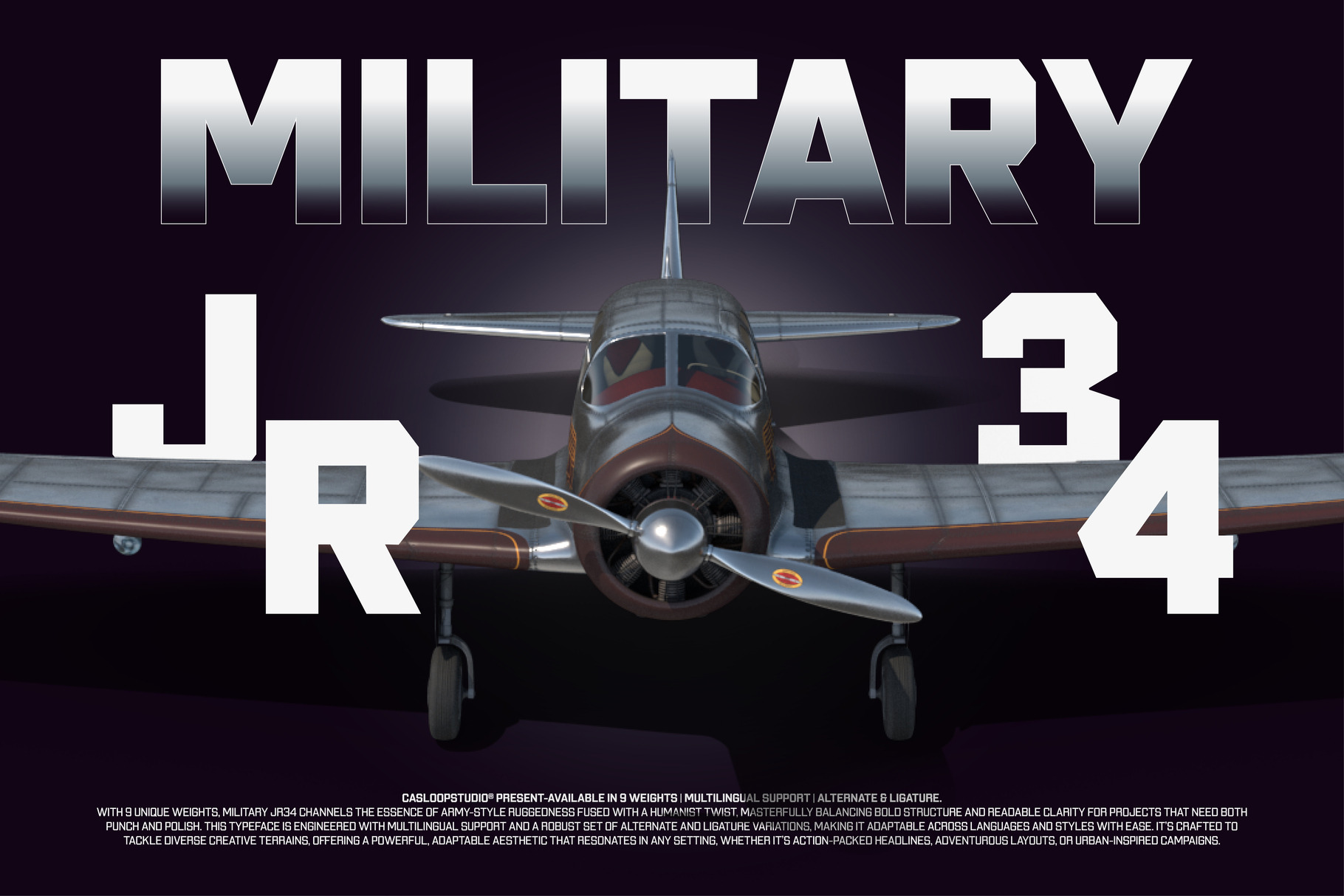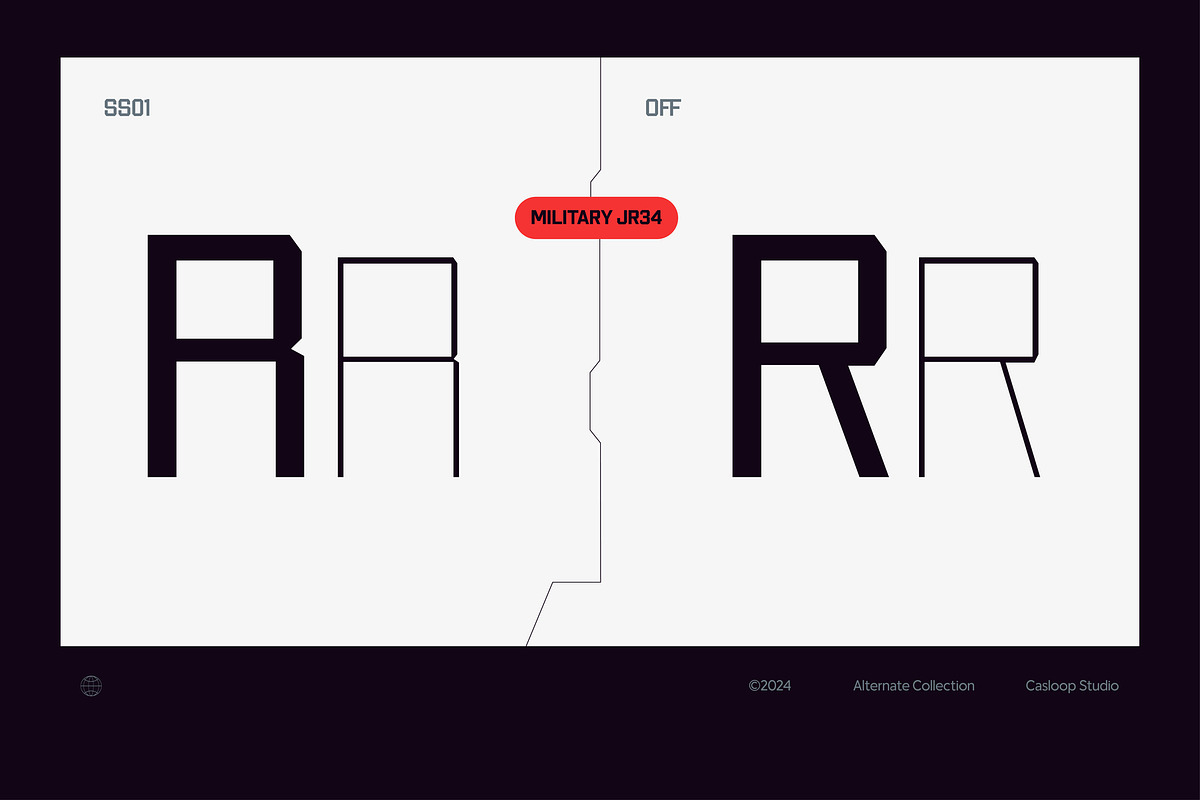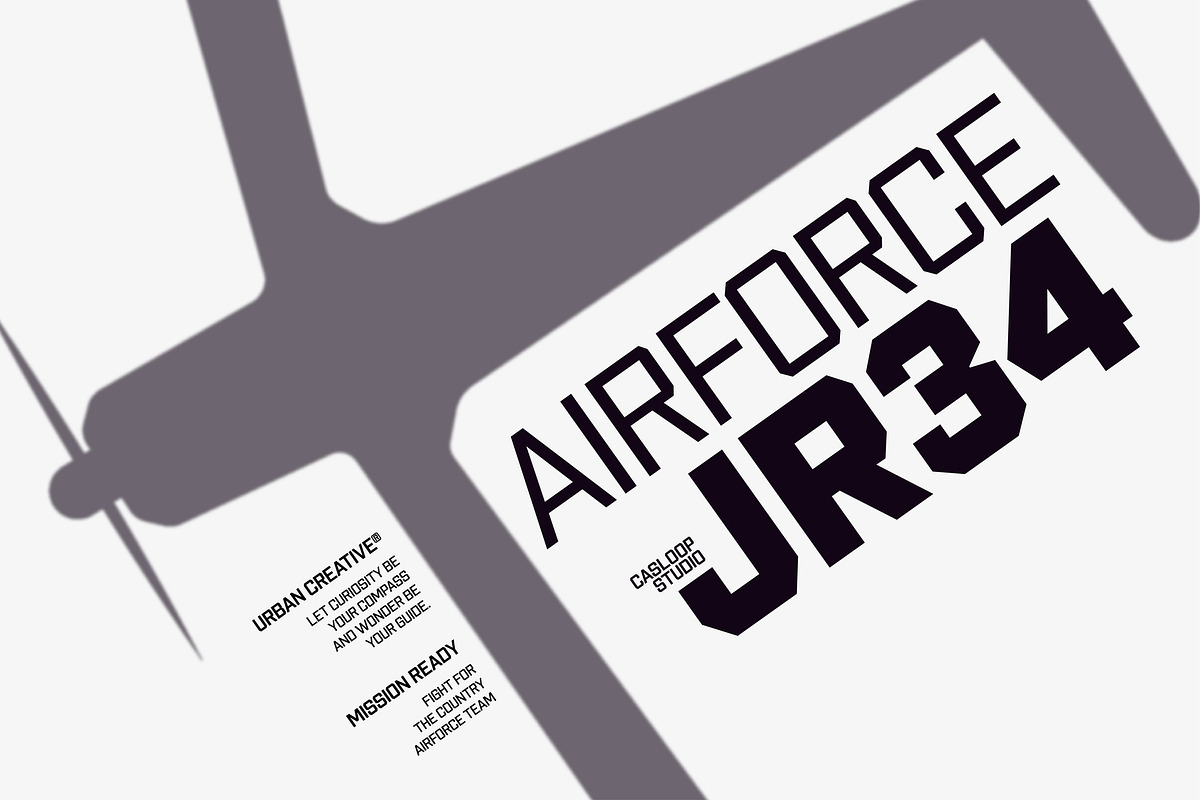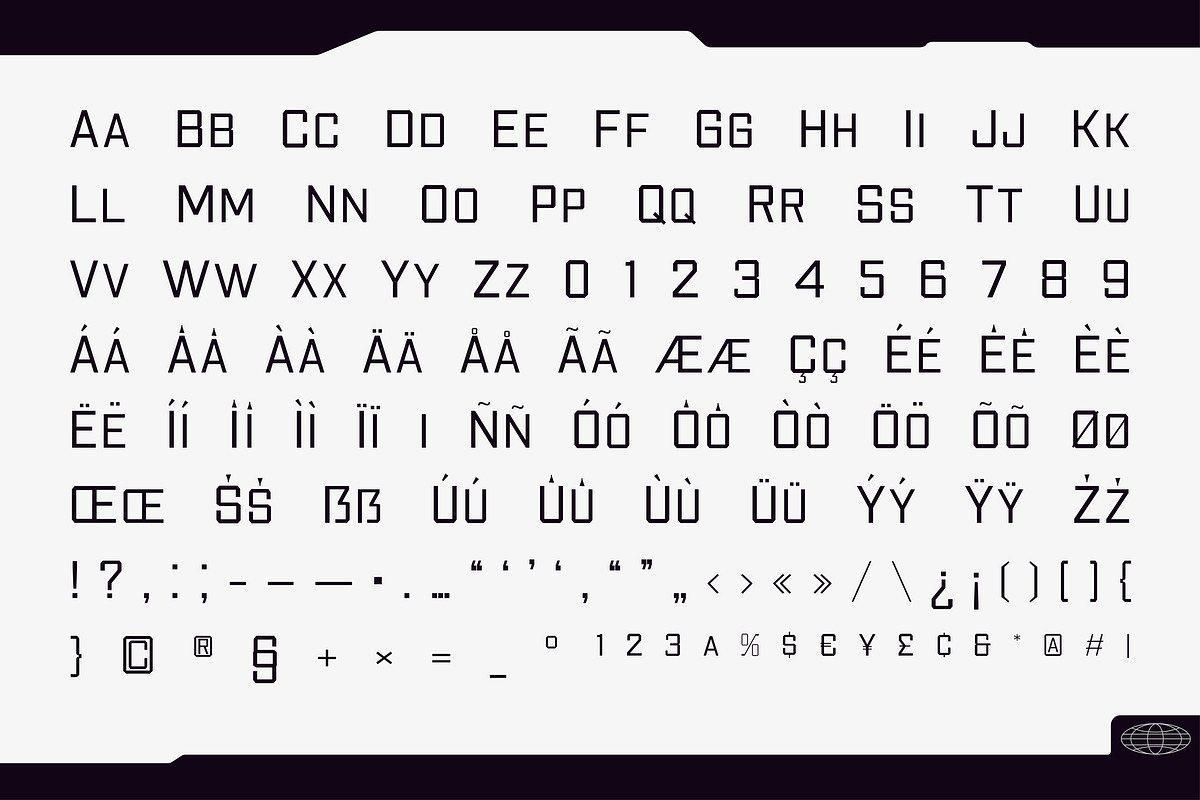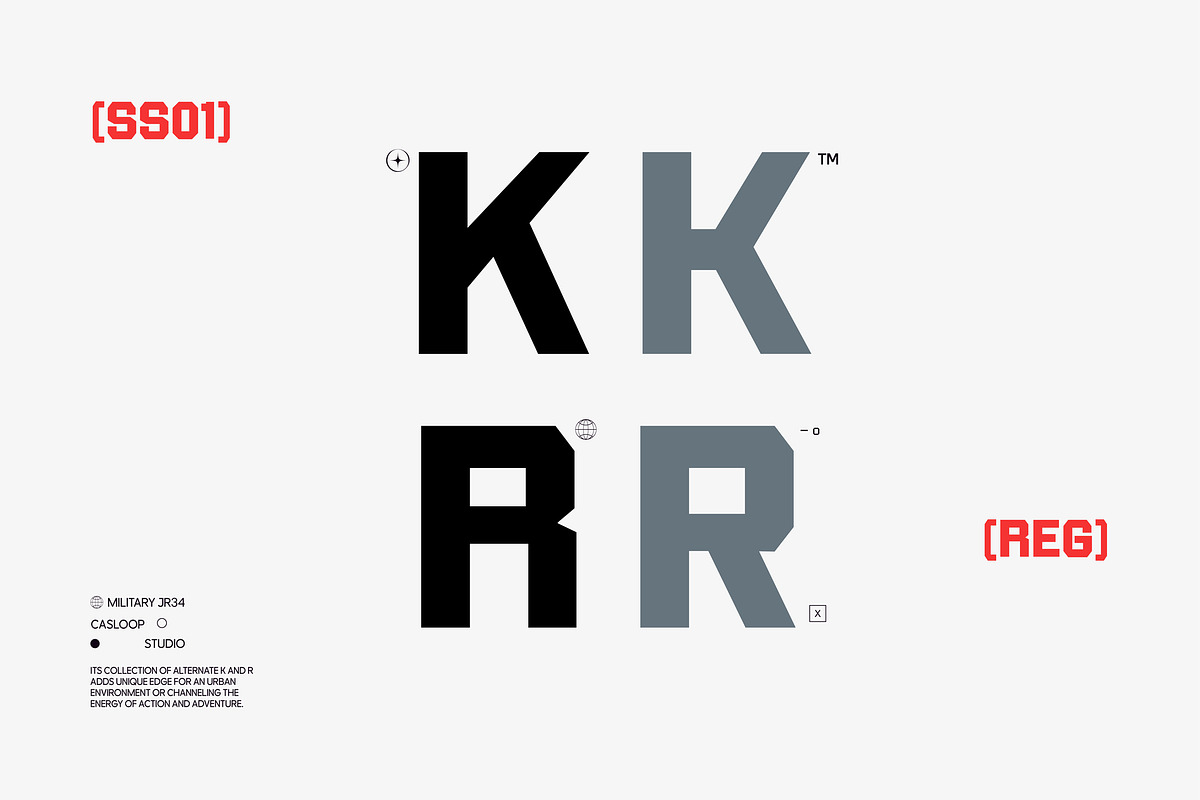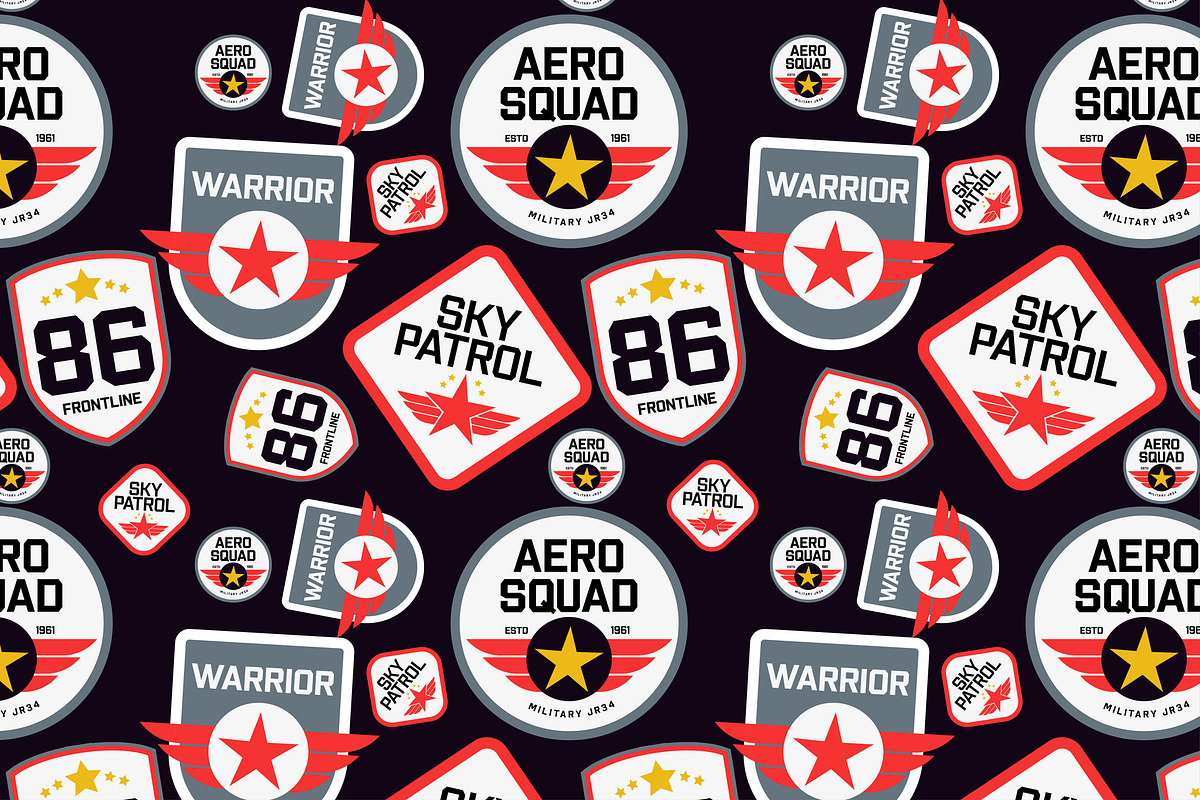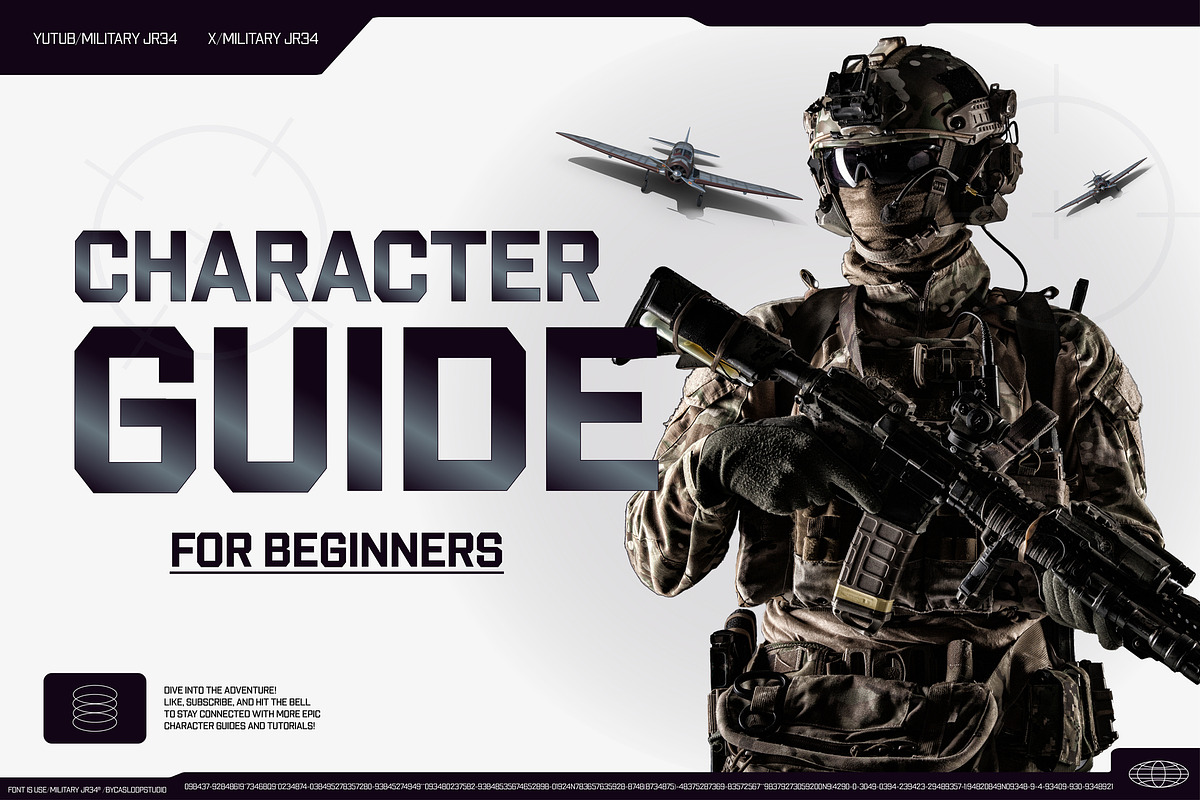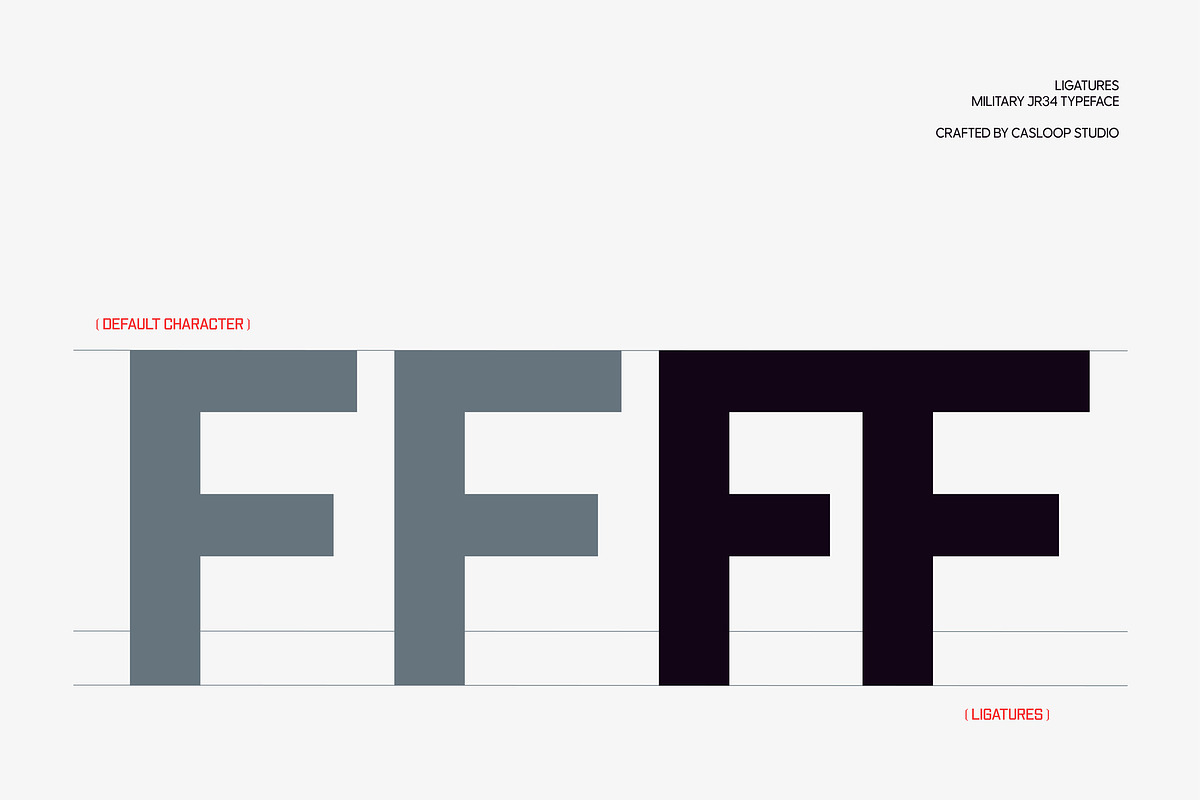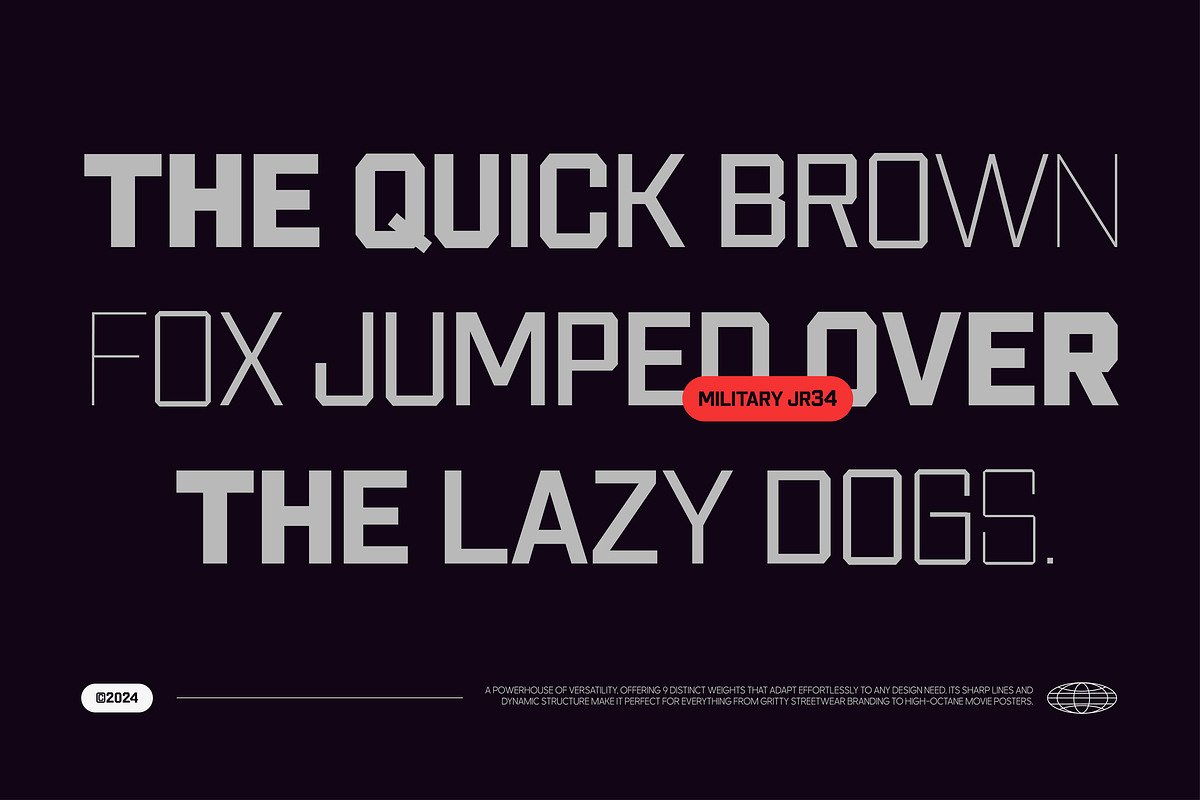
Military JR34 - Adventure 9 Fonts
Introducing Military JR 34 — the ultimate typeface that combines robust, structured shapes with a contemporary, versatile flair. This Sans Serif font, rigid and military - inspired, is crafted to give your designs a standout presence, effortlessly blending strength with sophistication.
Military JR 34’s adaptable font family spans from Thin to Black weights, offering a range of expressive options that are perfect for bold, high-impact branding. Its legible, blocky shapes make it a powerful choice for digital media visuals, athletic apparel, and even automotive-themed packaging. Whether you’re designing for campus posters, sportswear, or construction signage, this typeface commands attention.
Uppercase & lowercase
Numbers and punctuation
Ligatures & Alternates
With a modern, edgy style and military precision, Military JR 34 brings a professional yet energetic vibe to projects in sports, university branding, and beyond. Embrace its versatility and give your designs the dynamic, professional edge they need to stand out across any medium.